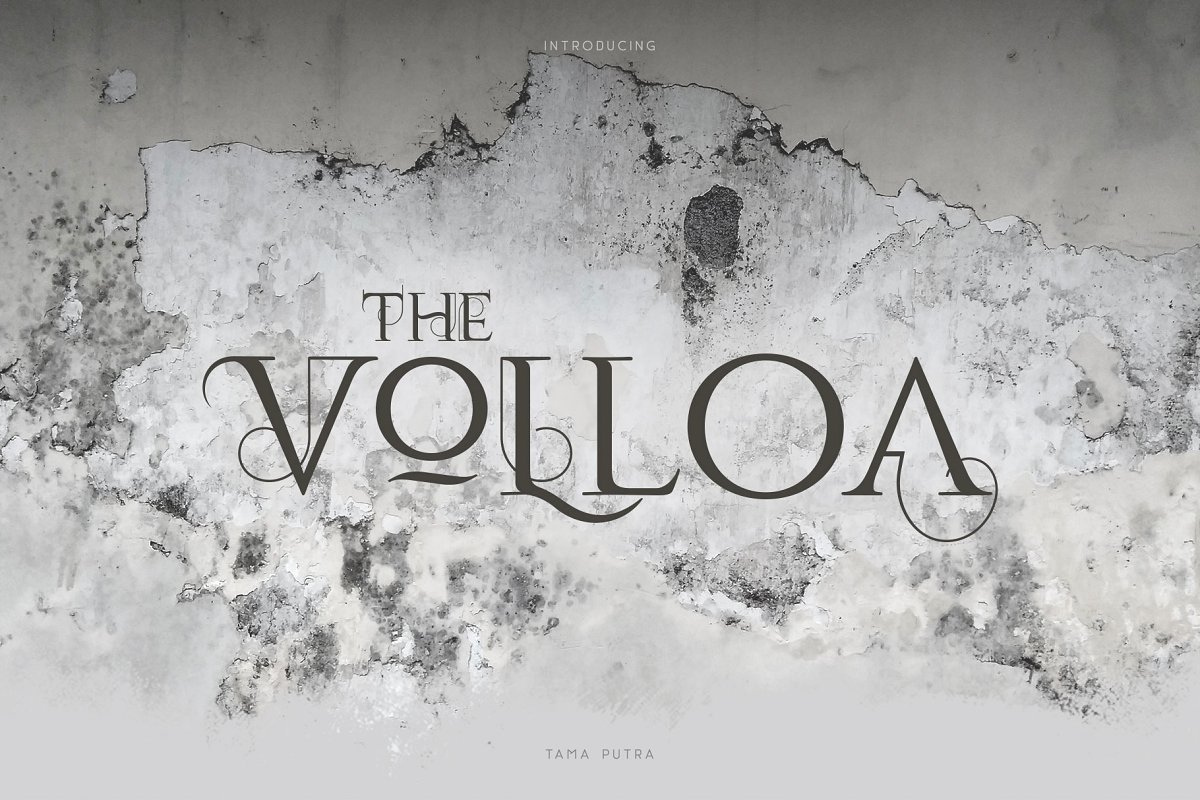
Volloa Decorative Font
Volloa Decorative Font is perfect for luxury wedding invitations, ornate branding projects, elegant event materials, premium boutique identities, sophisticated packaging design, high-end restaurant menus, artistic exhibition graphics, and refined advertising campaigns. This exquisite typeface works magnificently in both digital applications and print media where ornamental beauty and decorative elegance are paramount design considerations.
What makes Volloa Decorative Font so exciting is its masterful interpretation of ornamental artistry through intricate letterforms that seem crafted by skilled artisans with generations of decorative expertise and refined aesthetic sensibilities. The font features elaborate characters with ornate flourishes, decorative proportions, and artistic details that create an immediate atmosphere of luxury and sophisticated craftsmanship. Its ornamental personality and artistic heritage make it ideal for brands seeking to communicate premium quality, exclusive elegance, and the timeless appeal of handcrafted beauty while maintaining excellent readability across ceremonial applications.
The Volloa Decorative Font family includes multiple stylistic variations with different ornamental intensities, along with elaborate alternates and decorative embellishments. Each style maintains the typeface's artistic character while offering comprehensive character sets including ornate numerals, decorative punctuation marks, and special symbols designed to enhance luxury communications and elegant branding efforts across various sophisticated contexts.
This extraordinary typeface represents the perfect marriage of decorative tradition and contemporary luxury design for premium lifestyle and event industries. Whether you're developing high-end boutique identities, creating exclusive wedding materials, or designing luxury hospitality campaigns, Volloa Decorative Font Free Download delivers the ornamental sophistication and versatility needed to captivate discerning audiences. The font's decorative heritage makes it particularly effective for luxury brands, wedding planners, fine jewelry companies, and businesses celebrating the artistry and elegance of decorative craftsmanship.
The carefully crafted ornamental details and optimized luxury performance in Volloa Decorative Font ensure both artistic authenticity and clear communication across all premium applications. Its elaborate presence makes it perfect for luxury branding, elegant marketing materials, and sophisticated communications where its full decorative character can create unforgettable impressions and establish immediate association with exclusivity, artistry, and the timeless beauty of ornamental design excellence.